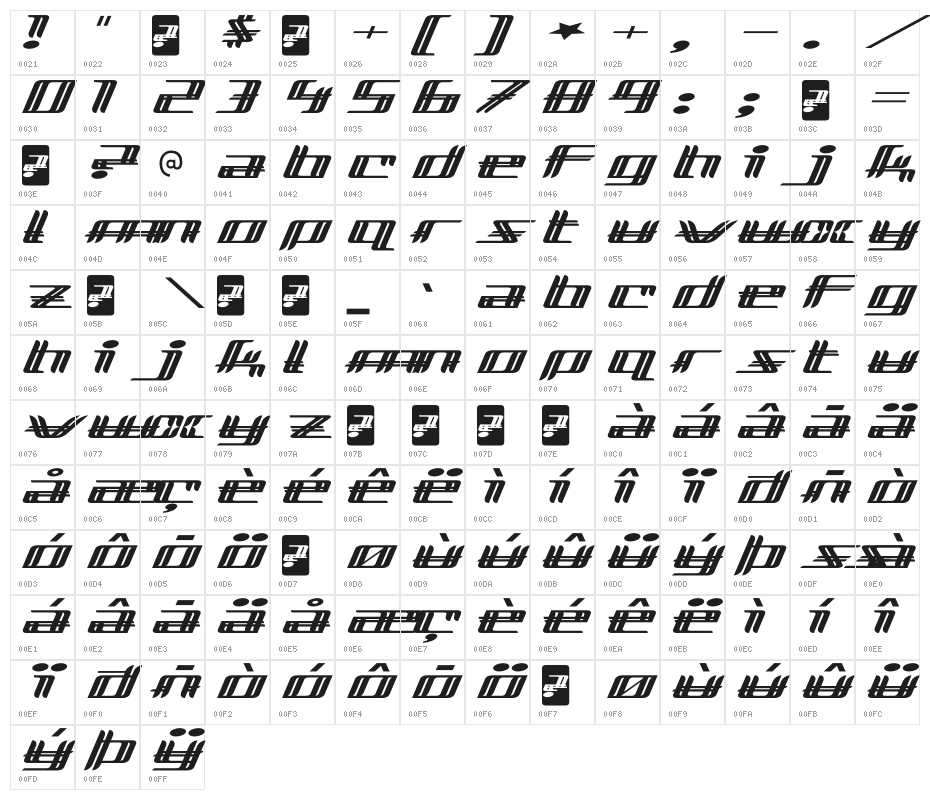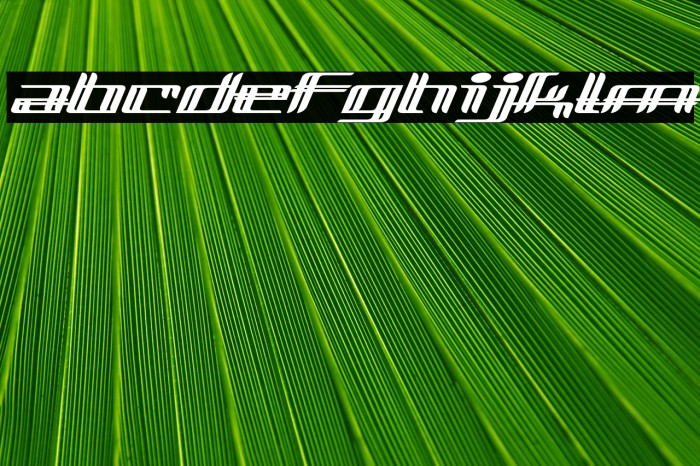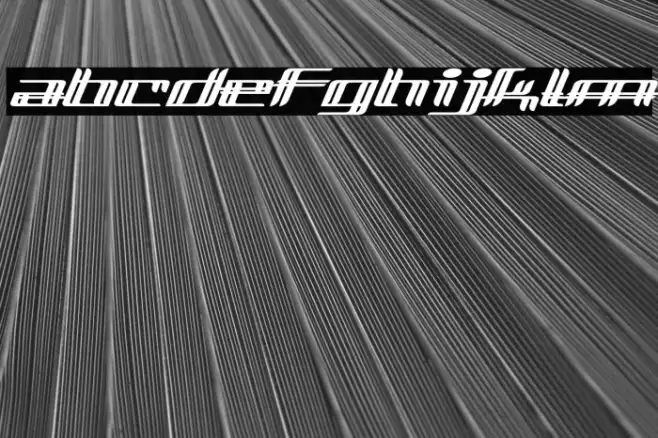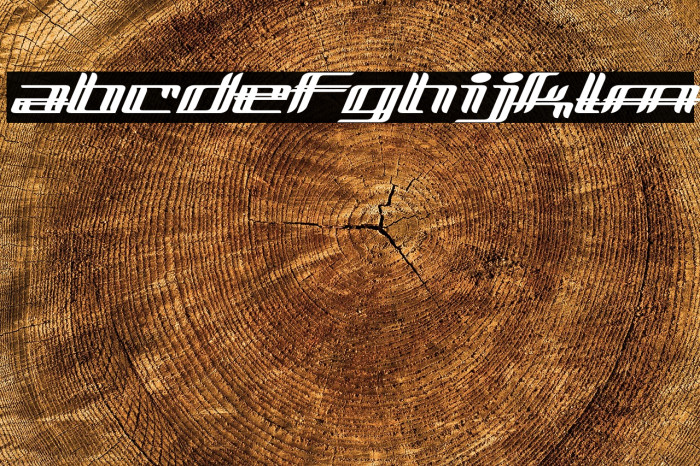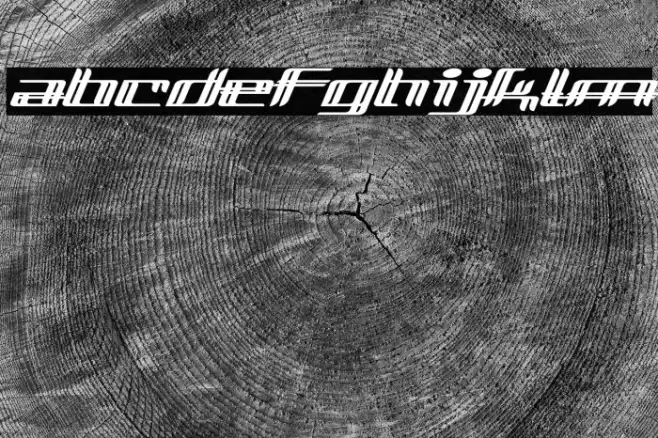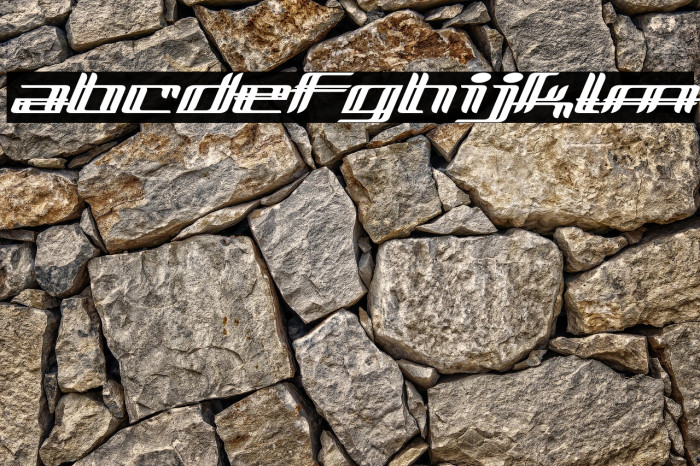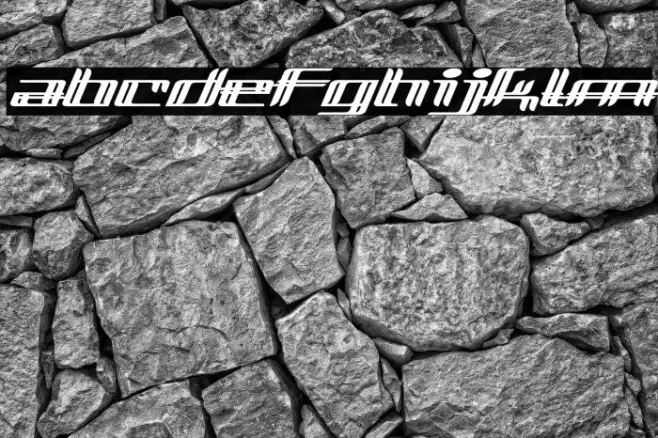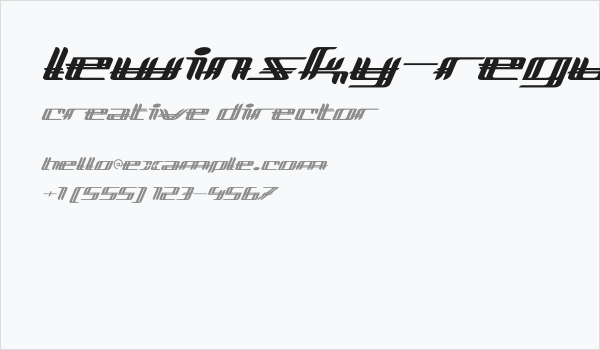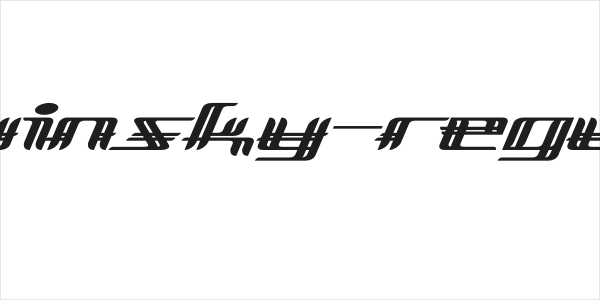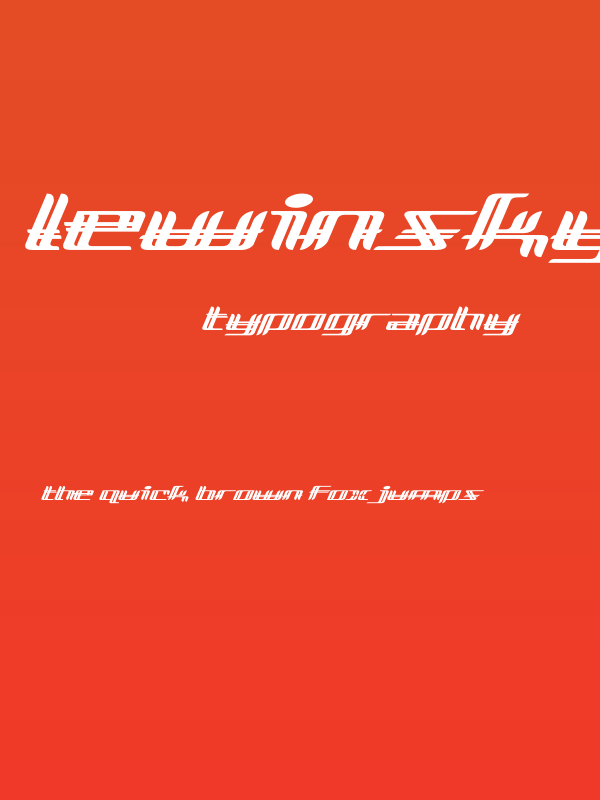
Lewinsky-Regular Font
Lewinsky-Regular Description
This font exhibits a dynamic and futuristic style, characterized by its angular and italicized letterforms. The characters are designed with a distinct slant, giving them a sense of motion and speed. The strokes are consistent in weight, providing a uniform appearance across all characters. The font includes both uppercase and lowercase letters, numerals, and a variety of special characters. Its unique design makes it stand out, with sharp edges and a modern aesthetic that is both eye-catching and versatile.
| Proposed Projects | Ideal for projects that require a modern and edgy look, such as tech branding, video game titles, or sci-fi themed designs. |